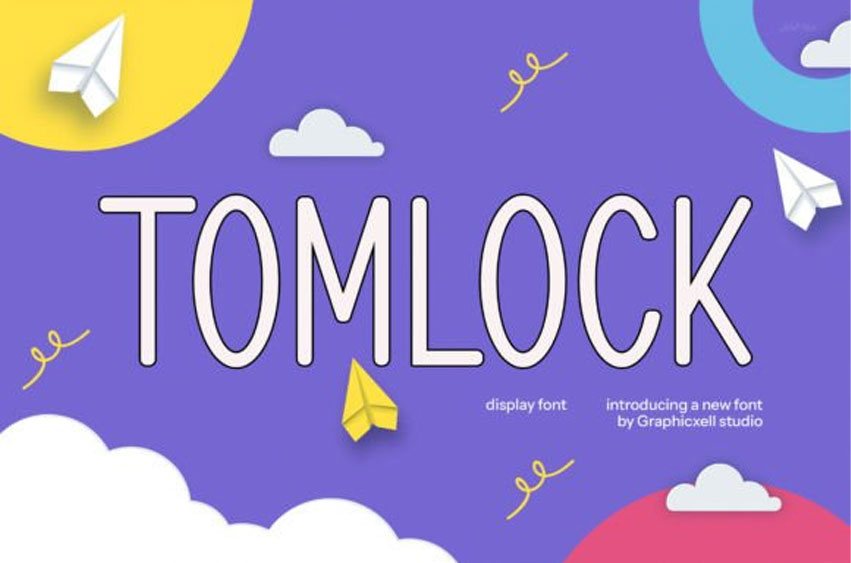
Tomlock Font
Tomlock Font is a modern sans-serif typeface. It offers a clean and modern look, with bold, straightforward characters infused with vibrant colors. It’s perfect for making a statement.
This font is great for logos, badges, clothing, posters, and more.